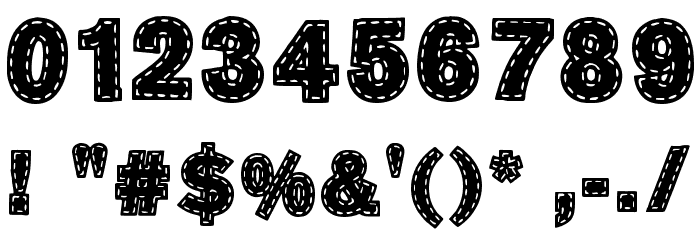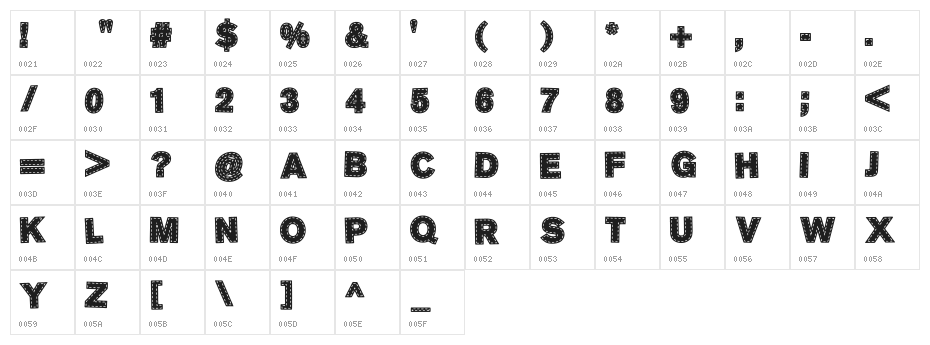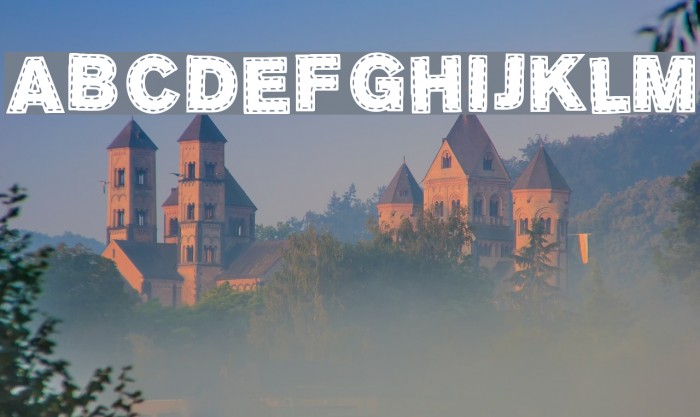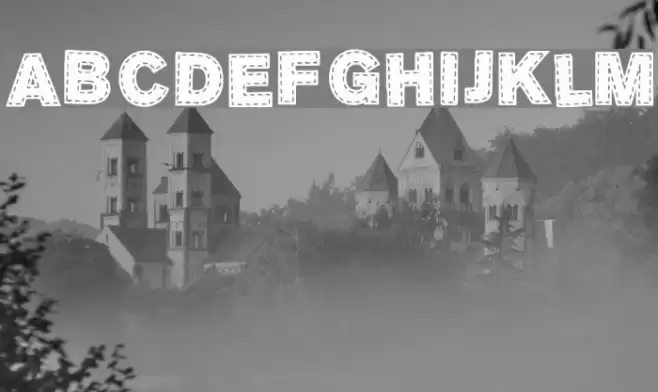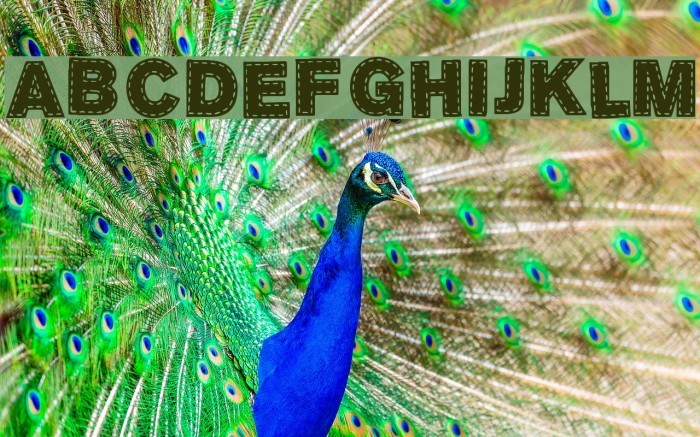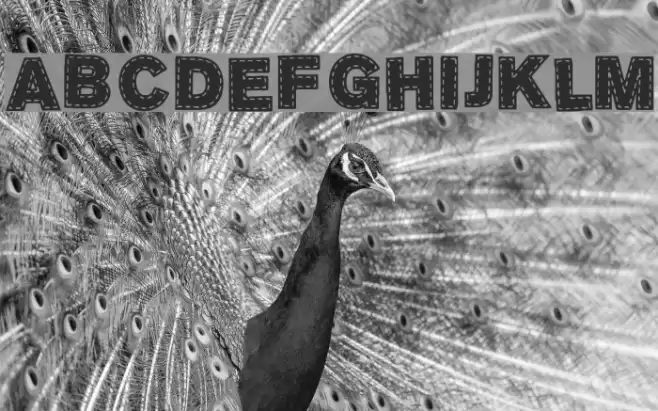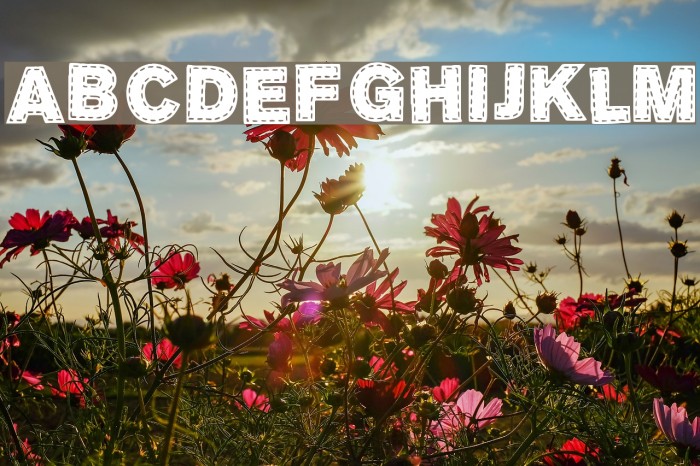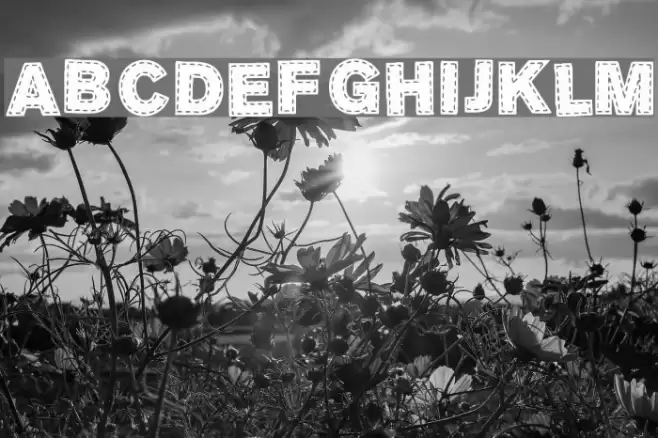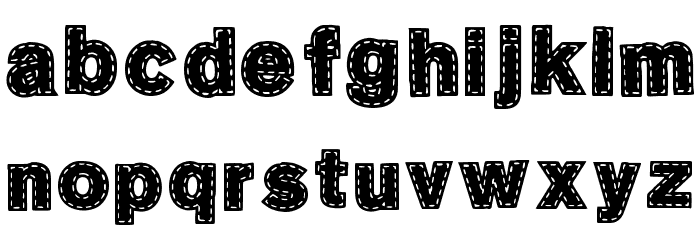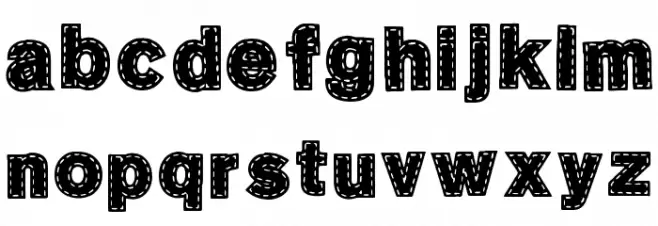
Singer Mears Font
Singer Mears Description
This font features bold, uppercase and lowercase letters with a playful, decorative style. Each character is outlined with a dotted pattern, giving it a unique and eye-catching appearance. The numbers and special characters follow the same design, maintaining consistency across the font set. The overall look is both fun and bold, making it suitable for creative and informal projects. The characters are well-spaced, ensuring readability while maintaining the decorative elements.
| Overall Style | Playful, Decorative |
| Use Case | Headlines, Posters, Invitations |
| Proposed Projects | Ideal for children's books, party invitations, posters, and playful branding. |